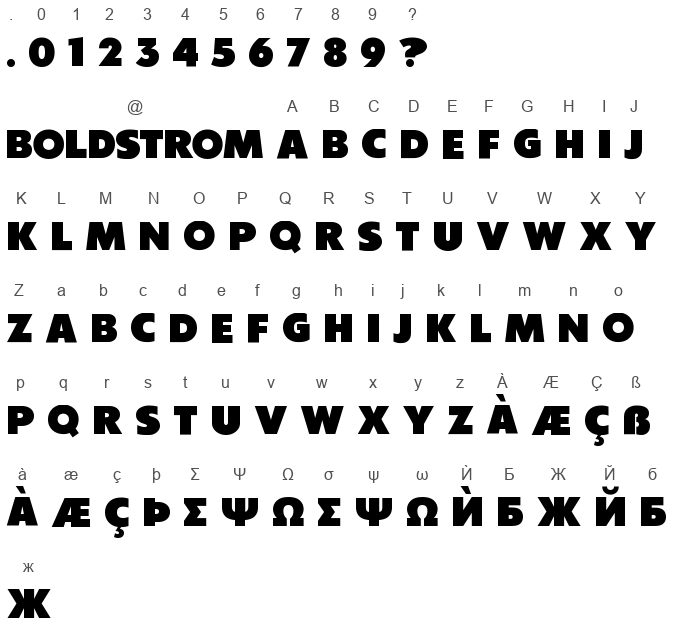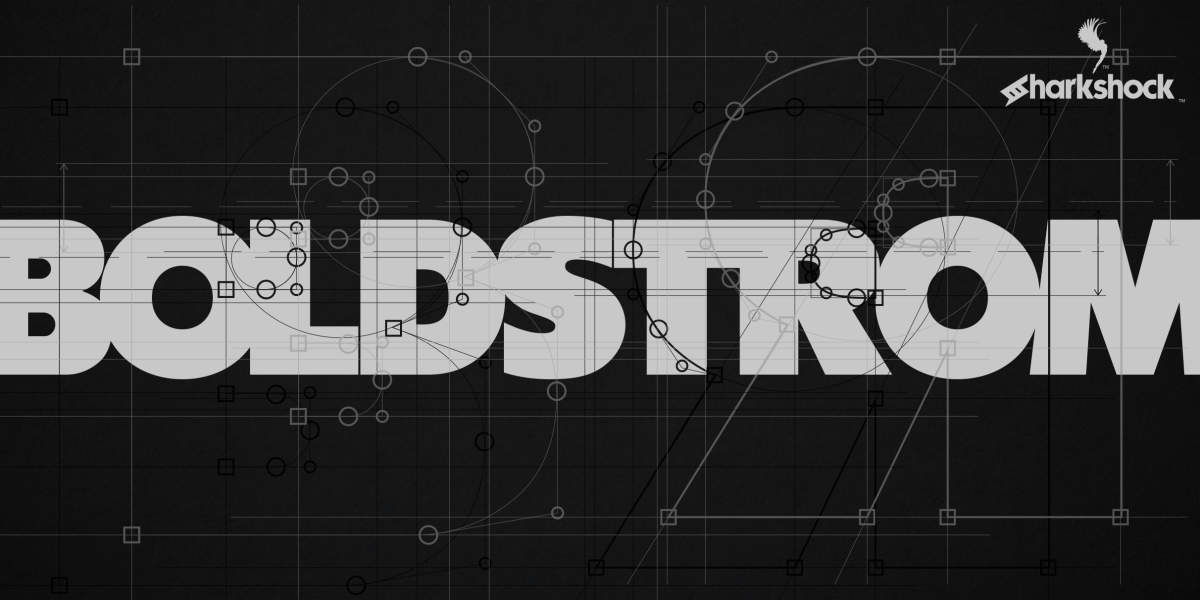
The Boldstrom font is an extremely heavy and dominating display typeface. The characters are completely rounded at the corners and the ends of the strokes, giving it a soft, yet incredibly bold appearance. It is an initial-caps font, with all letters presented in a uniform uppercase. The font also has a distinct retro aesthetic, reminiscent of designs from the 1960s or 1970s. Its overall visual impact is substantial and commanding, making it suitable for headlines or logos.
Boldstrom